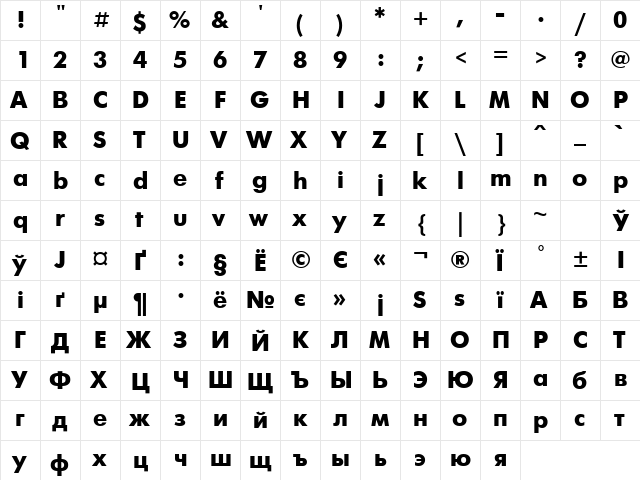
FuturisExtraC Regular
Design Context for FuturisExtraC Typeface
FuturisExtraC has a distinctly futuristic character, with geometric precision and clean angles that feel at home in technology, gaming, and sci-fi contexts.
Pro Tip: Try FuturisExtraC with generous letter-spacing in UI labels and navigation — the geometric forms benefit from room to breathe.